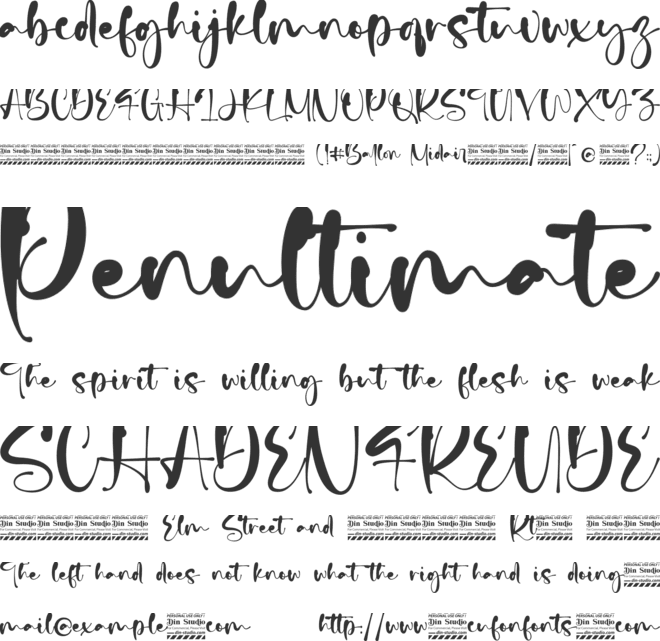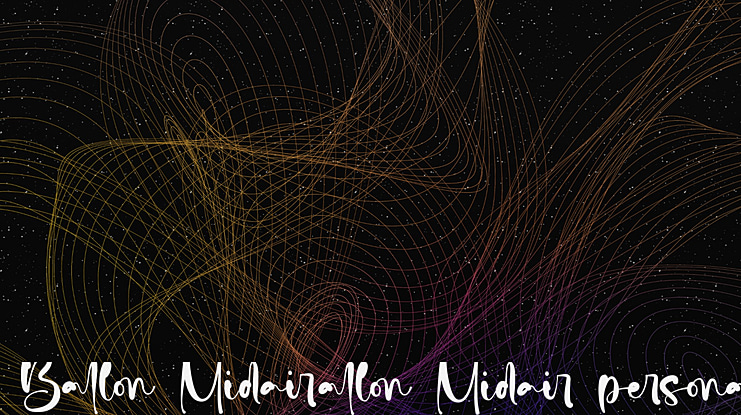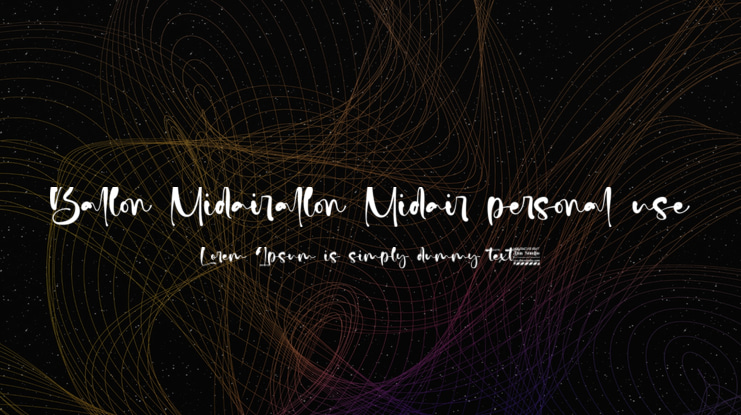
Balloon Midair-A Handwritten Script Font
A beautifully handcrafted font that’ll make your guests sing and elevate your projects! Every stroke and curve was created to spread happiness and elegance. Use it to create standout headings, promote your online sales, Instagram quotes, and even printed materials like business cards, t-shirts, or invitations.